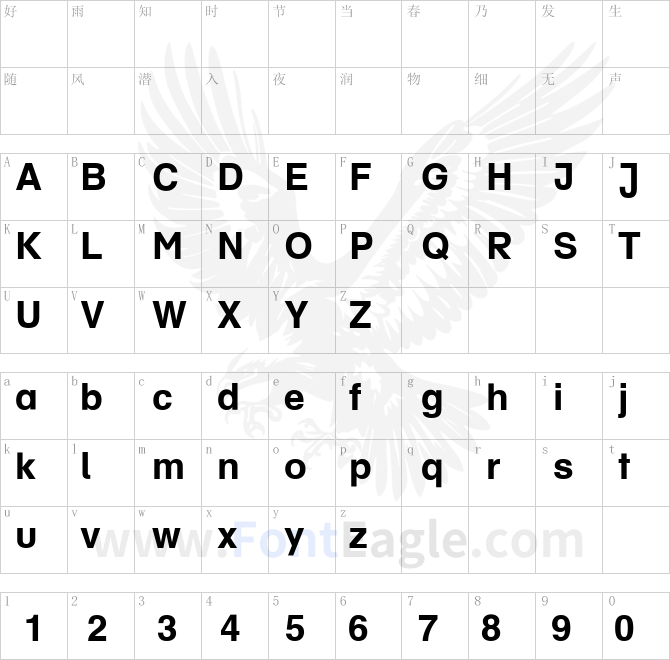
SchulbuchSued Medium.ttf Font Image
- Font name:SchulbuchSued
- Font Full Name:SchulbuchSued-Fett
- Postscript:SchulbuchSued-Fett
SchulbuchSued Medium.ttf Characters Sample